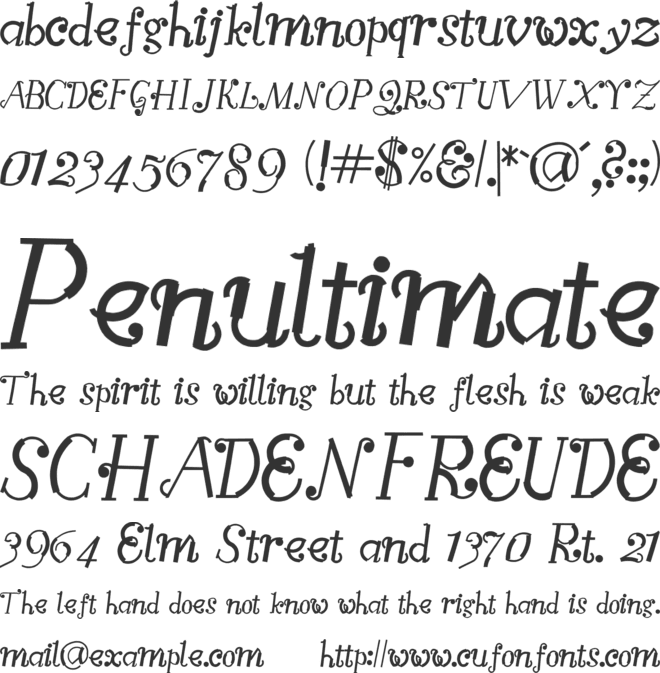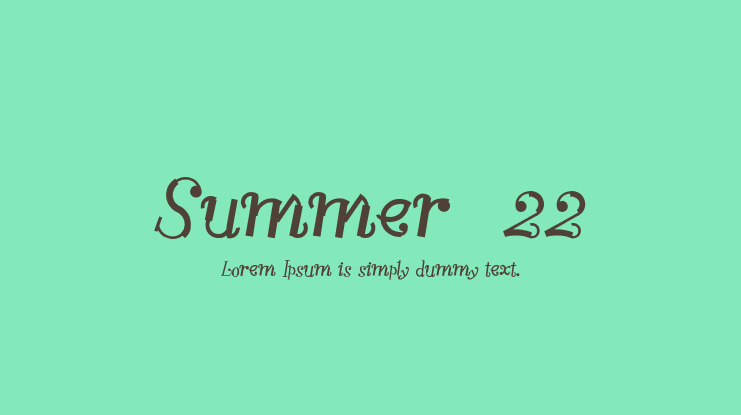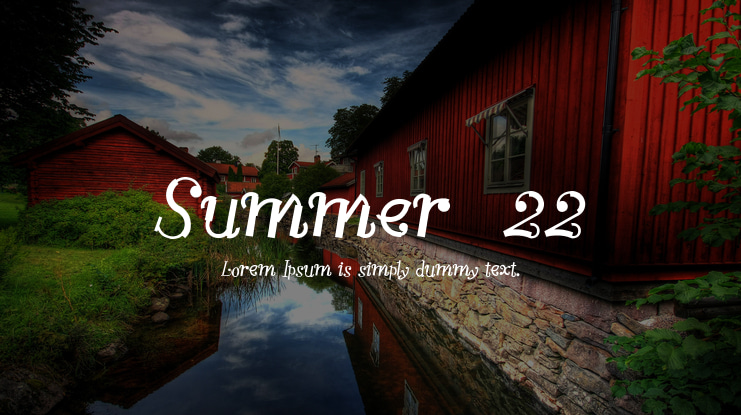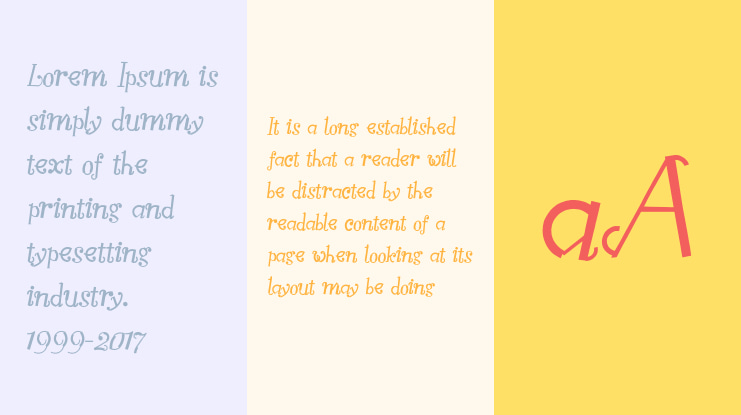
Summer 22 Font
Summer Italic 22 is made the same way as my previous font, Summer Sans 22, by manually cutting black cardboard and gluing it on paper. Those were then scanned, refined, and made into a font with FontForge. The result is as silly and wonky as its predecessor. When used in posters at larger sizes, it gives a nice handcrafted feel to any design.